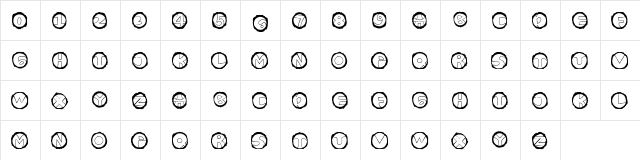
ROSEBERRY Regular
| Designer | Oziel89 Studio |
Design Context for ROSEBERRY Typeface
ROSEBERRY is a composed and adaptable typeface that performs quietly and consistently across a wide range of design contexts.